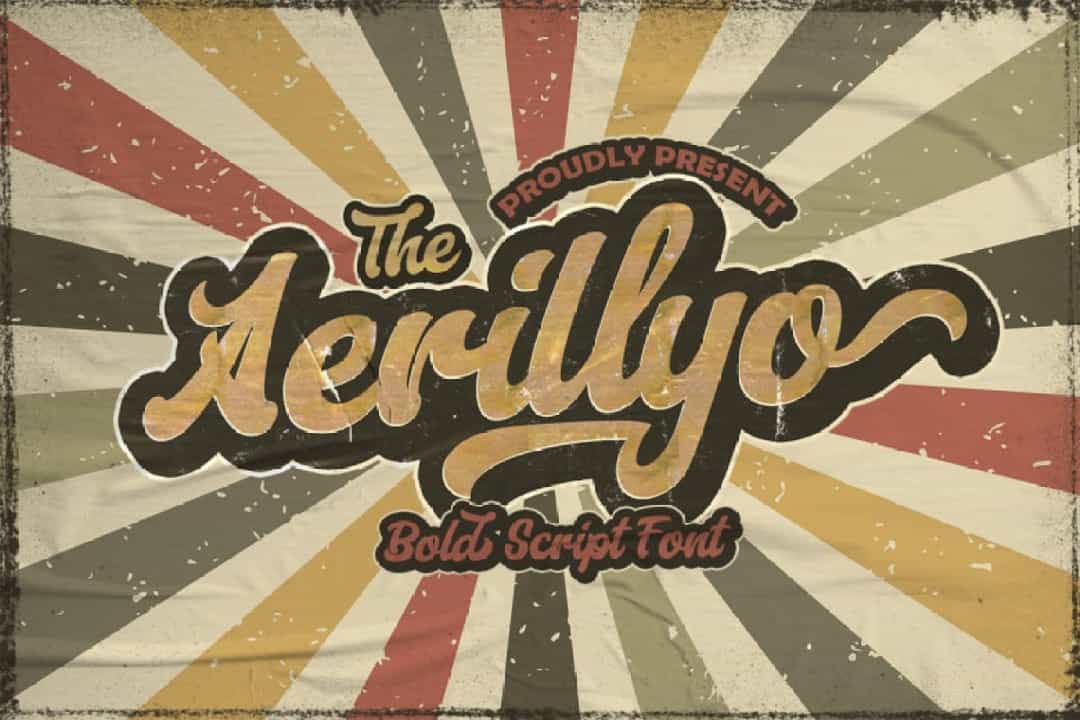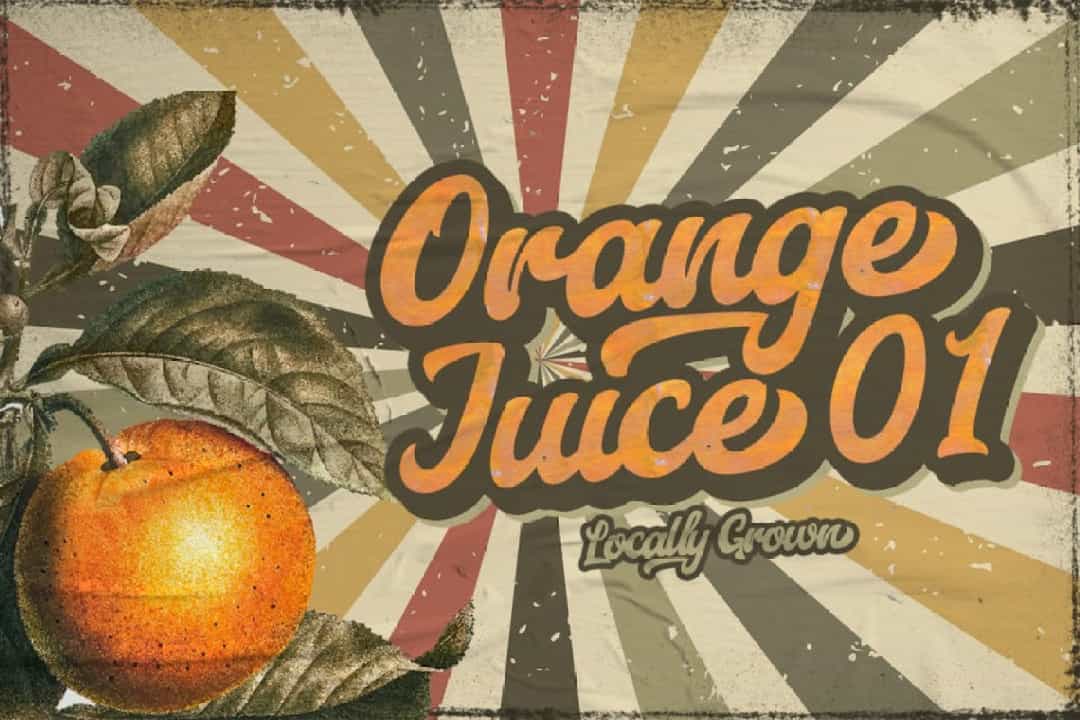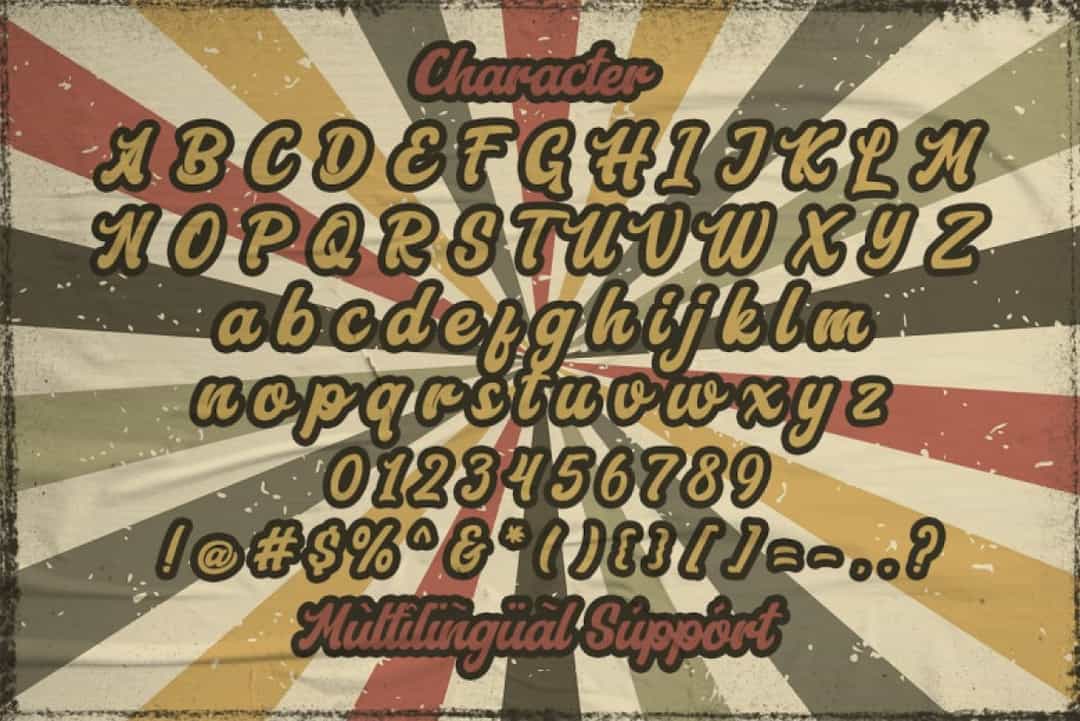
This rather thick and bulky script font, called Aerillyo, has a pretty high potential. That means it has tender lines and circle shape in each movement or plot and has a distinct retro vintages look ideal for logos. Overall, this font will be ideal for any 80s or retro, retro vintage project.